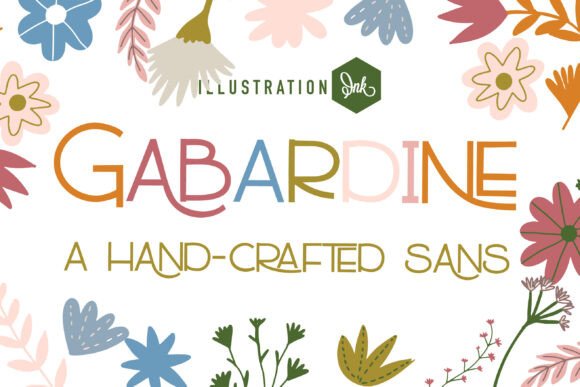
Gabardine Font: A Hand-Crafted Sans Serif for Creative Projects
The Gabardine Font is a unique, hand-crafted sans serif font that has gained popularity among designers and crafty enthusiasts. This adorable print font features cute ligatures that add a touch of personality to any project. In this article, we’ll explore the world of hand-crafted fonts, their uses, and the benefits of using Gabardine Font in your creative endeavors.
What is a Hand-Crafted Font?
A hand-crafted font, also known as a handwritten font, is a typeface that is designed to mimic the look of handwriting. These fonts are often created using traditional calligraphy techniques or digital drawing tools. The result is a font that looks like it was written by hand, with all the imperfections and quirks that make it unique.
Key Features of Gabardine Font
- Hand-crafted sans serif font: Gabardine Font is a sans serif font that has been carefully crafted to resemble handwriting.
- Cute ligatures: The font features adorable ligatures that add a touch of personality to any project.
- Bold and light versions: Gabardine Font comes in both bold and light versions, making it versatile for various design applications.
Uses of Hand-Crafted Fonts
Hand-crafted fonts like Gabardine Font are versatile and can be used for a variety of purposes. Here are some popular use cases:
Popular Use Cases for Hand-Crafted Fonts
- Invitations and greeting cards: Hand-crafted fonts add a personal touch to invitations, birthday cards, and other celebratory messages.
- Branding and packaging: Handwritten fonts can be used to create unique and memorable brand identities.
- Digital and print media: Hand-crafted fonts can be used in digital media, such as social media graphics, and print media, like brochures and flyers.
- Art and craft projects: Handwritten fonts are perfect for art and craft projects, like scrapbooking, journaling, and DIY crafts.
Benefits of Using Gabardine Font
Gabardine Font offers several benefits that make it an attractive choice for designers and crafty enthusiasts. Here are some of the advantages of using Gabardine Font:
Benefits of Using Gabardine Font
- Unique and eye-catching: Gabardine Font’s hand-crafted design makes it stand out from more traditional fonts.
- Versatile: The font comes in both bold and light versions, making it suitable for various design applications.
- Easy to read: Despite its hand-crafted design, Gabardine Font is easy to read, making it perfect for body text and headlines.
- Customizable: As a digital font, Gabardine Font can be easily customized to fit your design needs.
Tips for Using Hand-Crafted Fonts Effectively
While hand-crafted fonts like Gabardine Font are beautiful and unique, they can be challenging to use effectively. Here are some tips to help you get the most out of hand-crafted fonts:
Tips for Using Hand-Crafted Fonts Effectively
- Use them sparingly: Hand-crafted fonts can be overwhelming if used excessively. Use them sparingly to add emphasis and personality to your design.
- Pair them with simple fonts: Pair hand-crafted fonts with simple, sans serif fonts to create visual contrast and hierarchy.
- Consider the tone: Hand-crafted fonts can convey a range of tones, from playful to elegant. Choose a font that fits the tone of your project.
- Experiment with colors and textures: Hand-crafted fonts can be paired with various colors and textures to add depth and interest to your design.
Gabardine Font is a beautiful, hand-crafted sans serif font that offers a unique and eye-catching way to add personality to your designs. With its cute ligatures, bold and light versions, and versatility, Gabardine Font is perfect for a range of creative projects. By understanding the benefits and uses of hand-crafted fonts, you can create stunning designs that stand out from the crowd.